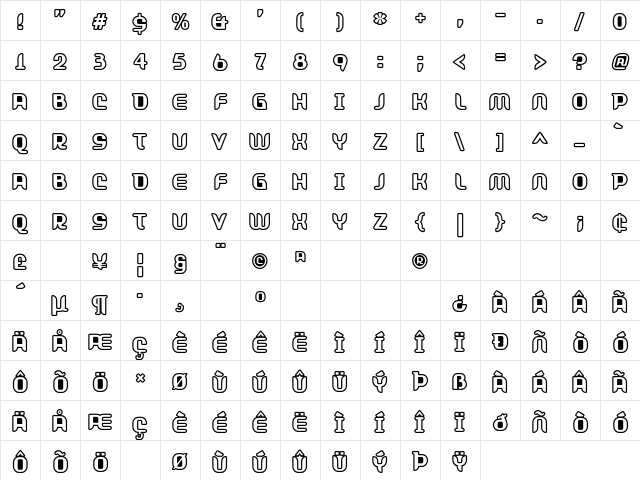
Shifty Outline Free Font
Shifty Outline
Style: Outline
Design Context for Shifty
Shifty is built around its visual character rather than neutral utility - its distinctive forms are designed to make an impression at display sizes.
Font Pairing: Pair with a clean neutral sans-serif for body copy to let Shifty's character lead without overwhelming the composition.
Pro Tip: Use Shifty exclusively at display sizes - it was designed to be seen, not read at length. Let a neutral companion handle body copy.